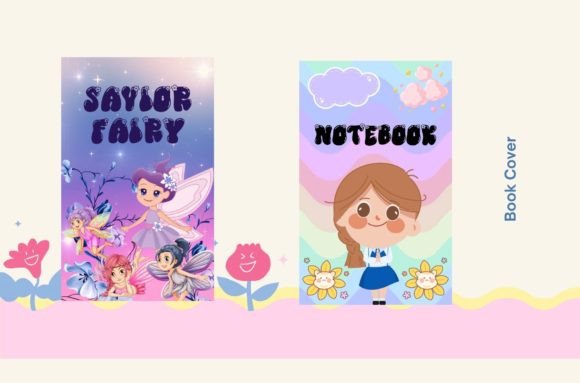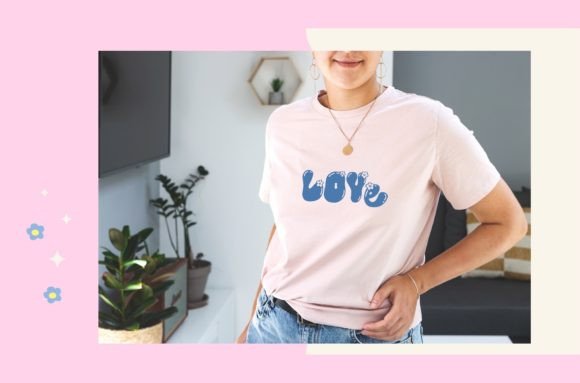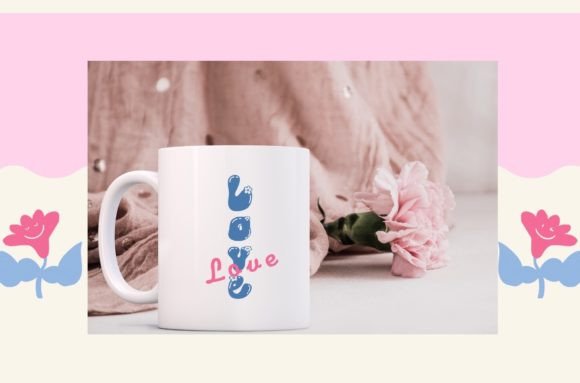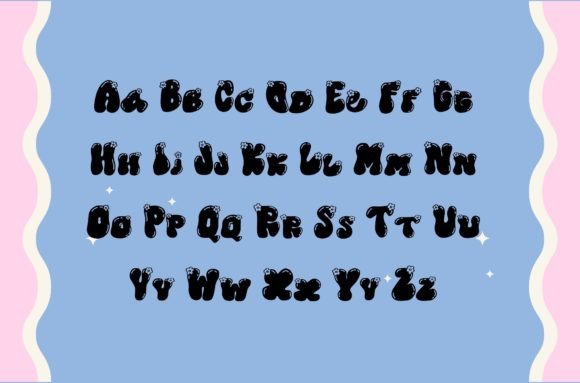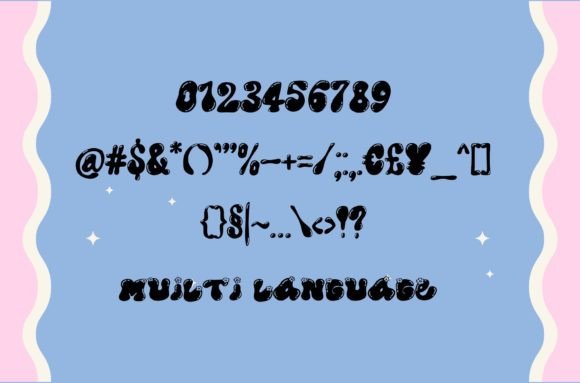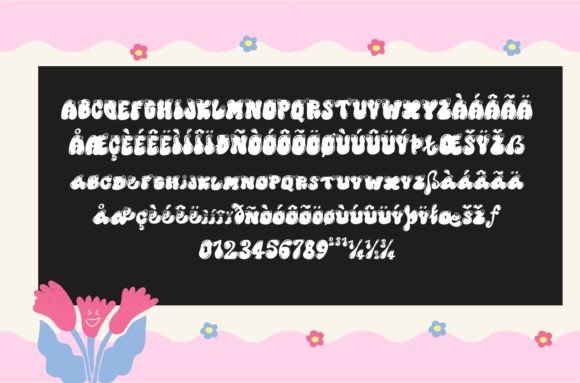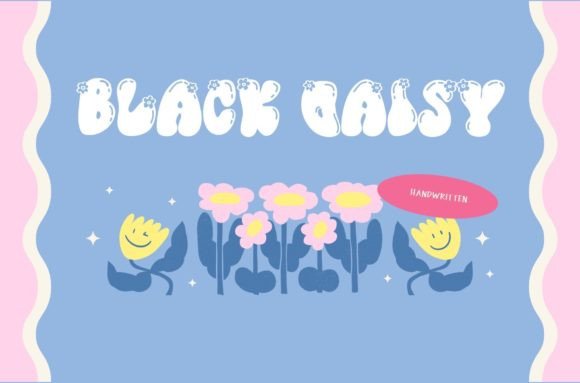
Introducing Black Daisy Font: Elevate Your Designs with a Touch of Elegance
Are you a designer, crafter, or DIY enthusiast looking for a font that can add a touch of elegance and sophistication to your projects? Look no further than Black Daisy Font, a stunning display font that is perfect for a wide range of applications. In this article, we’ll explore the features and benefits of Black Daisy Font, and show you how it can take your designs to the next level.
What is Black Daisy Font?
Black Daisy Font is a beautiful display font that is designed to make a statement. Its bold, yet elegant design makes it perfect for use in a variety of projects, from logos and branding to wedding invitations, business cards, and more. The font features a unique and stylish design, with clean lines and a sophisticated aesthetic that is sure to impress.
What Can I Use Black Daisy Font For?
Black Daisy Font is an incredibly versatile font that can be used for a wide range of projects, including:
- Logos and Branding: Create a lasting impression with a bold and eye-catching logo that showcases your brand’s personality.
- Wedding Invitations: Add a touch of elegance and sophistication to your wedding invitations and save-the-date cards.
- Business Cards: Stand out from the crowd with a professional and stylish business card that features Black Daisy Font.
- Greeting Cards: Create beautiful and heartfelt greeting cards for special occasions, such as birthdays, holidays, and anniversaries.
- Posters and Magazines: Use Black Daisy Font to add a touch of drama and flair to your posters and magazine layouts.
- Social Media: Elevate your social media graphics and posts with a font that is sure to grab attention.
- Planner Prints: Add a touch of style and sophistication to your planner prints and journals.
- Websites: Use Black Daisy Font to create stunning website headers, titles, and other design elements.
Why Designers and Crafters Love Black Daisy Font
Black Daisy Font is a favorite among designers and crafters for several reasons:
- Elegant Design: The font’s elegant design makes it perfect for projects that require a touch of sophistication and style.
- Versatility: Black Daisy Font can be used for a wide range of projects, from logos and branding to wedding invitations and more.
- Easy to Read: Despite its bold design, Black Daisy Font is easy to read, making it perfect for use in body text and other applications.
- Customizable: Black Daisy Font can be customized to fit your project’s needs, including adjusting the font size, color, and style.
Tips and Tricks for Getting the Most Out of Black Daisy Font
Here are a few tips and tricks for getting the most out of Black Daisy Font:
- Experiment with Font Sizes: Experiment with different font sizes to find the perfect balance for your project.
- Pair with Other Fonts: Pair Black Daisy Font with other fonts to create a unique and stylish design.
- Use in Combination with Images: Use Black Daisy Font in combination with images to create a visually appealing design.
- Make it Bold: Don’t be afraid to make Black Daisy Font bold and eye-catching – it’s designed to make a statement!